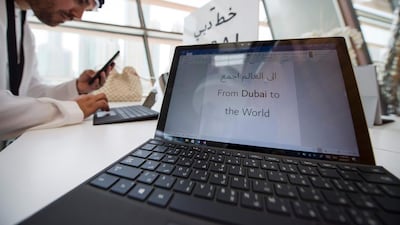
DUBAI // Microsoft’s first typeface to be created for a city – called Dubai Font – was on Sunday launched by Sheikh Hamdan bin Mohammed, the emirate’s Crown Prince.
And Sheikh Hamdan has told government departments to use the new font in all correspondence from now on.
“The launch of the Dubai Font to the world is a very important step for us as part of our continuous efforts to be ranked first in the digital world,” he said.
“We are confident that this new font and its unique specifications will prove popular online and in smart technologies across the world. Therefore, we urge all government entities to use the Dubai Font in their official correspondence.
“This is considered a positive shift that will boost the emirate’s competitiveness in smart technology.”
Sheikh Hamdan, who oversaw all stages of the font’s development, congratulated everyone who contributed to the initiative, saying it was a new tool for a more tolerant and happy world.
Abdulla Al Shaibani, Secretary General of the Executive Council of Dubai, said the font was the emirate’s new and innovative mark in the digital world, and one that built a knowledge bridge between the East and West.
“The Dubai Font sets itself apart from other fonts because it was designed based on the main pillars that have turned Dubai into a remarkable symbol of success and tolerance,” Mr Al Shaibani said.
“It was simultaneously designed in both Arabic and English, which was later extended to include 21 other languages.”
Samer Abu Ltaif, president of Microsoft in the Middle East and Africa, said that Dubai Font would be available globally to more than 100 million users.
“The debut of this font is a great example of successful collaborations between the public and private sectors to encourage reading and adopt more technical solutions to serve the communities,” Mr Abu Ltaif said.
Dubai Font was designed by Dr Nadine Chahine in collaboration with a team from a global agency, Monotype. It fills a design gap between Arabic and Latin texts and presents harmonious typefaces combining the two.
“The openness and harmony of the people in the UAE, the essence of Dubai and its vision to become the quintessential modern Arab city were our source of inspiration to design the Dubai Font,” said Dr Chahine, type director at Monotype.
“The challenge wasn’t to create a quality font but to create a new and a special medium of expression to unleash ambitions and transcend borders.”